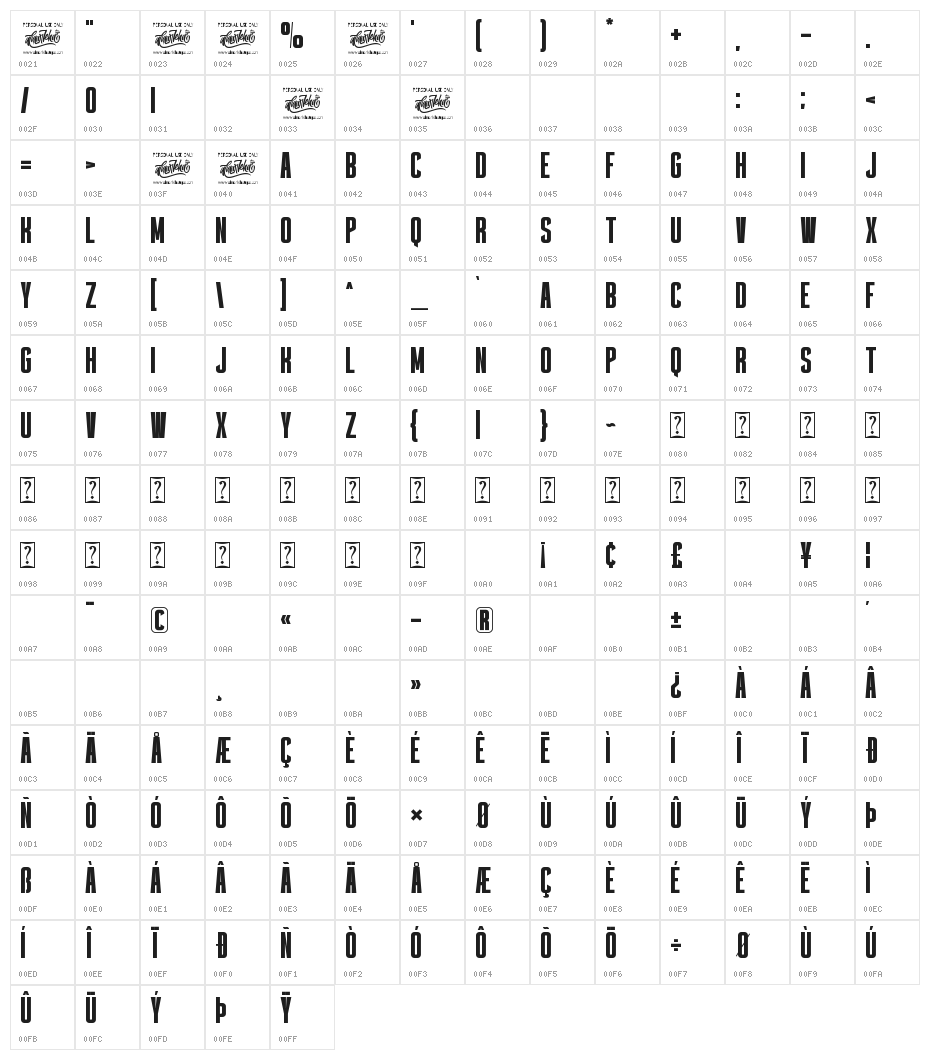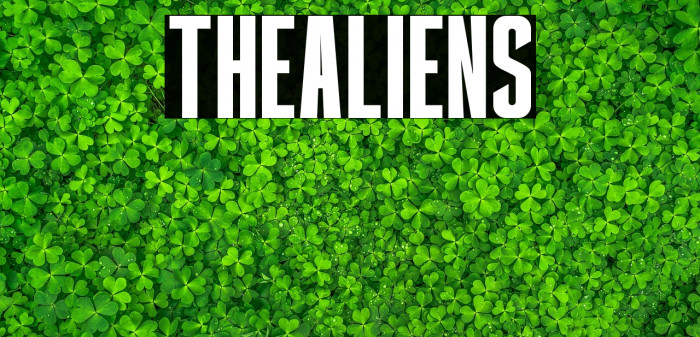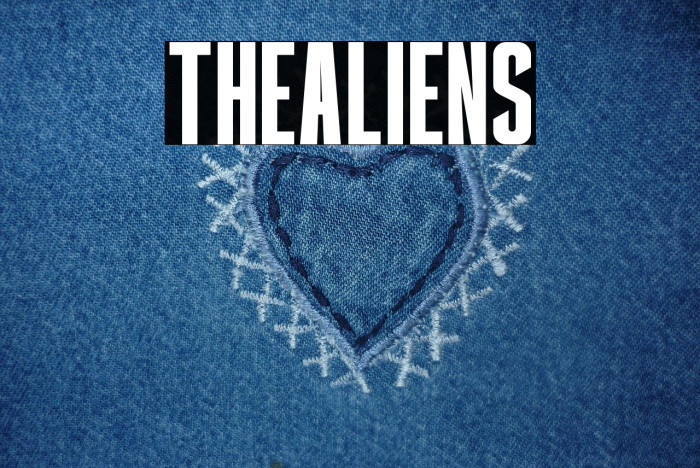
thealiens Font
thealiens Description
This font features a bold and impactful design with tall, narrow letters that convey a sense of strength and modernity. The uppercase letters are particularly striking, with a consistent height and a slightly condensed appearance. The strokes are thick and uniform, providing a strong visual presence. The font's style is clean and straightforward, making it suitable for attention-grabbing headlines or titles. The spacing between characters is tight, enhancing its compact and cohesive look. Overall, this font exudes a contemporary and assertive vibe, ideal for projects that require a bold statement.
| Proposed Projects | Ideal for headlines, posters, branding, and any design needing a bold, modern touch. |